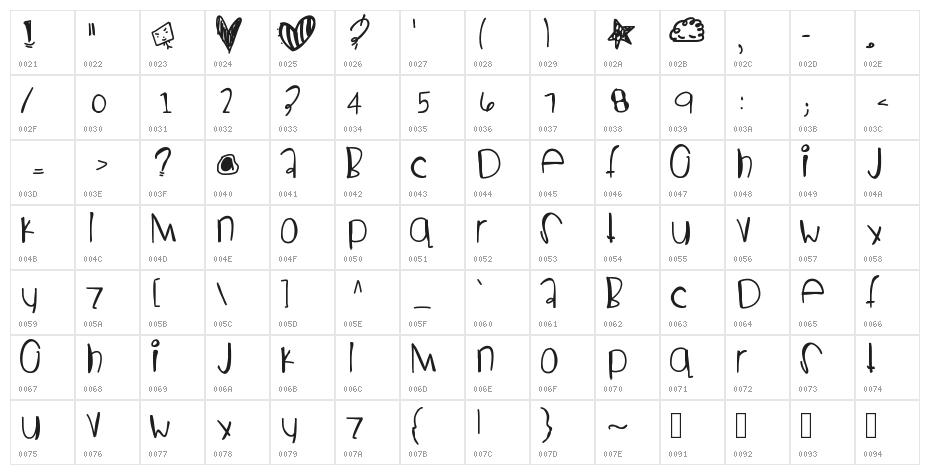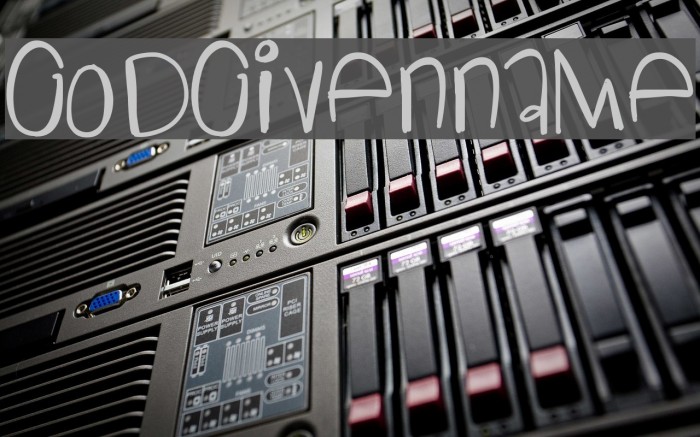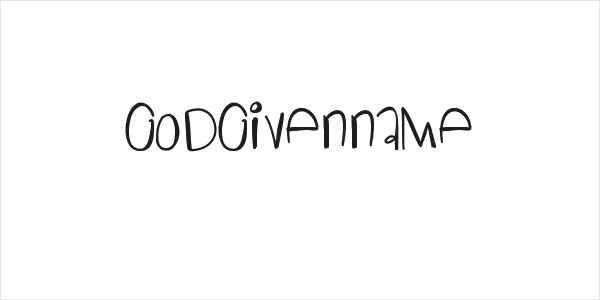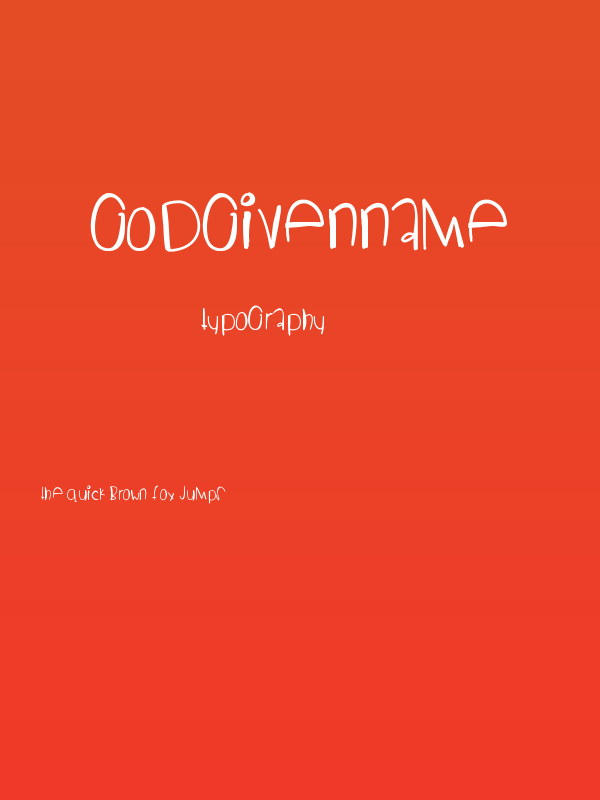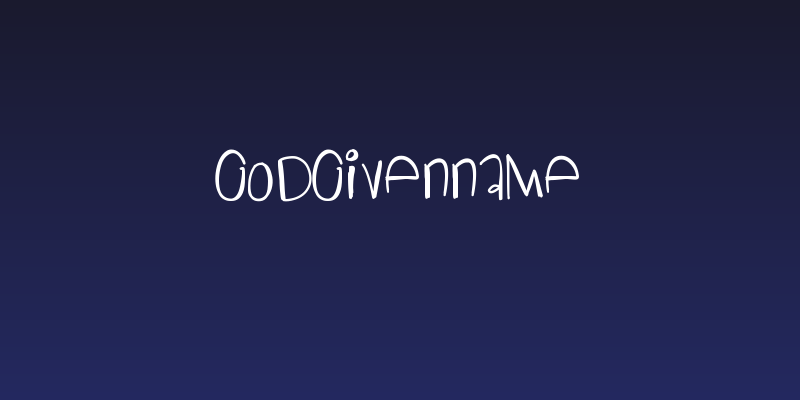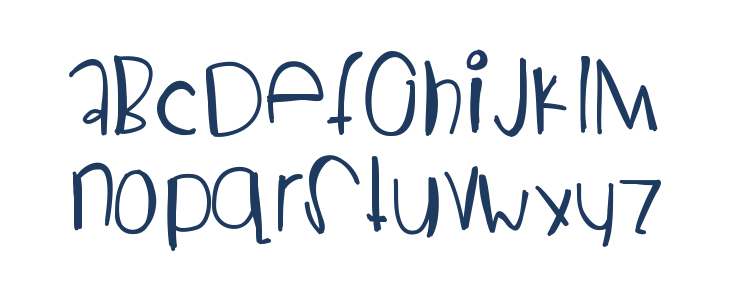
GodGivenName Font
GodGivenName Description
This font features a playful and whimsical handwritten style, characterized by its irregular and dynamic strokes. The letters exhibit a casual, freeform appearance with varying heights and widths, giving it a lively and informal feel. The uppercase and lowercase letters maintain a consistent style, with rounded edges and a slightly tilted orientation, adding to its charm. The numerals and special characters follow the same playful aesthetic, making it suitable for creative and fun projects. The overall design is approachable and friendly, perfect for conveying a sense of spontaneity and creativity.
| Use Case | Headlines, Logos, Creative projects |
| Proposed Projects | Ideal for children's books, greeting cards, playful branding, and creative social media graphics. |